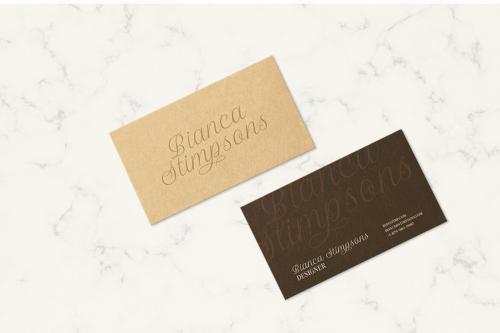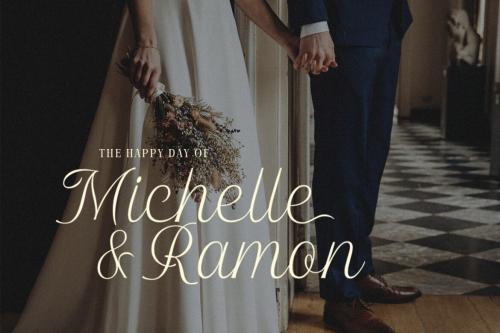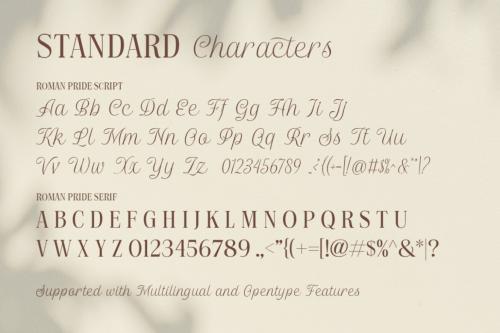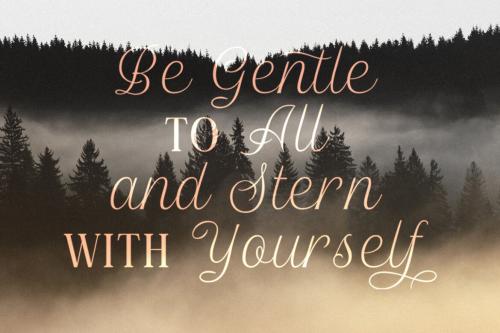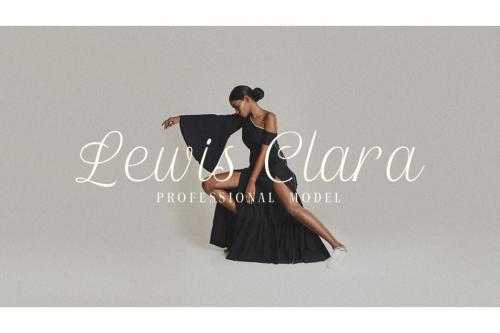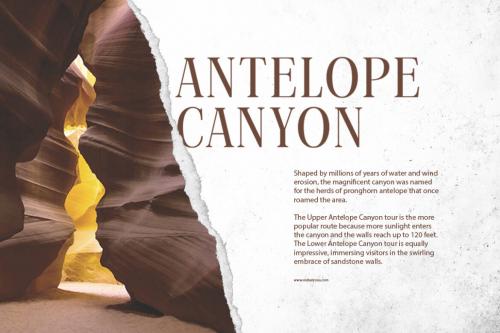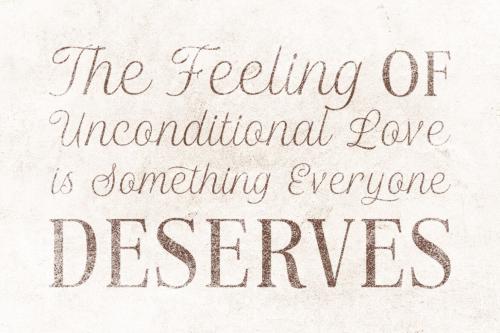
Introducing Roman Pride, a fresh and stylish font duo that features an elegant serif font and a charming script font. The combination of the two fonts creates a perfect harmony that is both classic and modern. Whether you're working on a wedding invitation and the other various formal forms such as labels, logos, magazines, books, packaging, fashion, make up, stationery, novels, labels or any type of branding project purpose, Roman Pride is a versatile font that will elevate your designs to the next level.